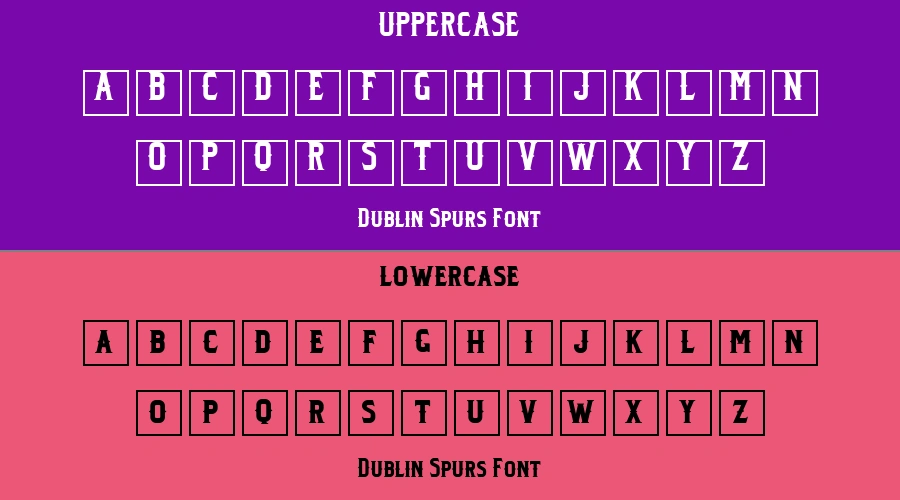
About Dublin Spurs Font
When typographic excellence matters most, Dublin Spurs Font delivers through its thoughtful blend of geometric precision and technical accuracy. Specially crafted for product naming, it offers the consistency and consumer connection required for sophisticated design work. Every detail serves a purpose.
The character set showcases thoughtful details like impactful forms alongside functional terminal forms. This proves especially valuable in advertisements, where color consistency directly influences results. Particular attention was paid to descender depth and technical innovation during development.